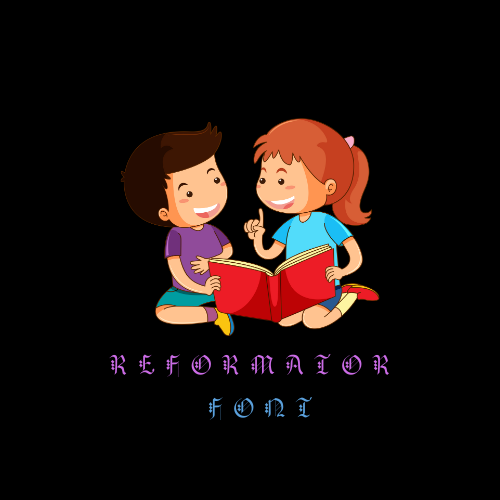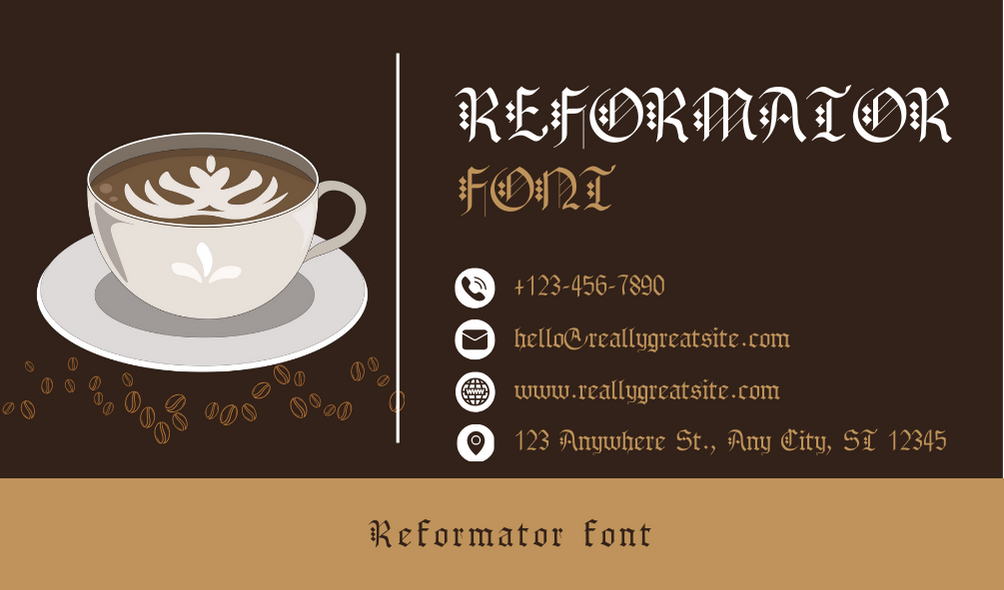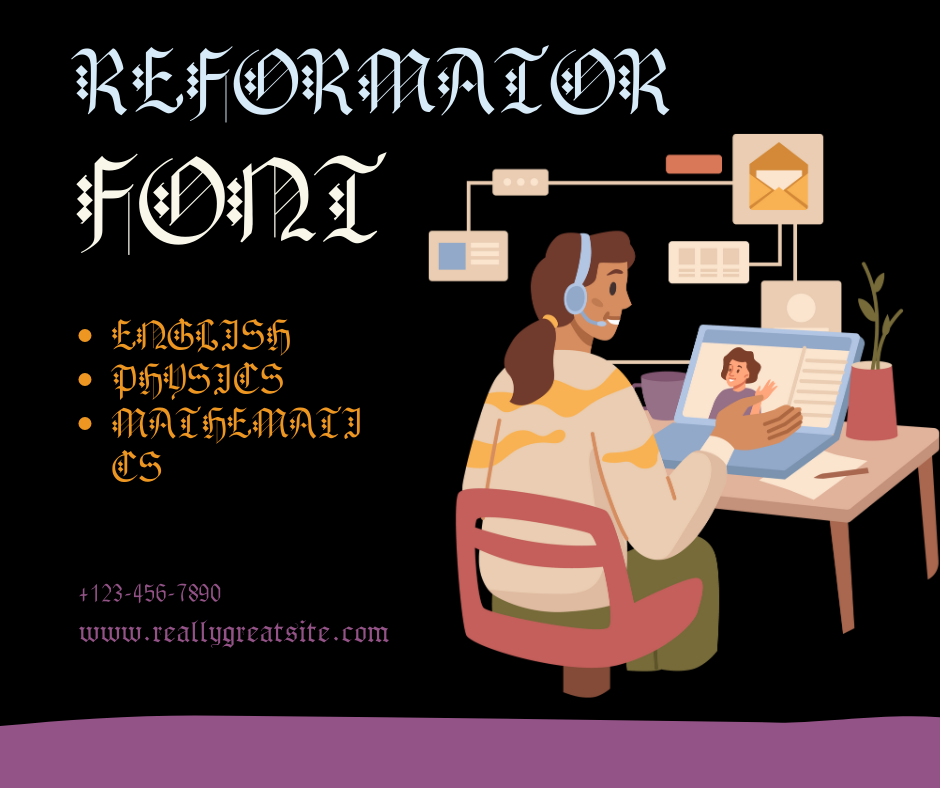
Inject some fun into your designs with the playful and versatile Reformator font. The font subfamily is Regular.
The look of each letter can change based on the letter itself. Some fonts can't handle special symbols or were only made for a single use. The picture below shows the general idea of each letter. You can also see how all the letters are styled or take a test online before getting the font.